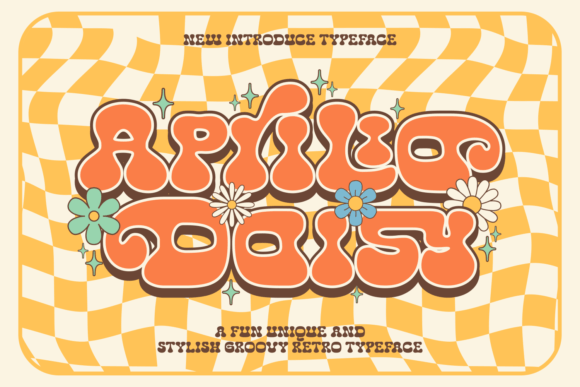
Have you ever been browsing through a vintage store or antique shop, and suddenly, you’re struck by the beauty of a distressed, hand-painted sign? The nostalgia, the charm, and the romance that comes with it is exactly what designers are looking for when they need to create a unique and captivating visual identity. This is where the Aprilia Daisy Font comes in – a stylish and playful retro display font that’s perfect for adding a touch of whimsy to your designs.
Whether you’re working on a greeting card, a headline, or any other creative project, the Aprilia Daisy Font is sure to give it a romantic and exquisite feel. Its versatility and PUA encoding make it a valuable asset for designers, allowing them to access all of the amazing glyphs and ligatures with ease. With the Aprilia Daisy Font, you’ll be able to add a touch of vintage charm to your designs, making them truly stand out.
Aprilia Daisy Font Key Features
- Unique Characteristics: Aprilia Daisy Font features a unique, playful design with a mix of rounded and geometric shapes, giving it a distinctive look.
- Font Style: The font has a casual, handwritten feel, making it suitable for informal and creative projects.
- Language Support: Aprilia Daisy Font supports a wide range of languages, including Latin-based alphabets and some Cyrillic and Greek characters.
Aprilia Daisy Font Review
First off, I want to say that I’m a fan of the Aprilia Daisy Font. It’s got a certain charm to it that’s hard to ignore ✨. The font’s unique blend of rounded edges and geometric shapes gives it a quirky, playful feel that’s perfect for creative projects. The designer has done a great job of balancing the different elements, resulting in a font that’s both visually appealing and easy to read.
One of the things that really stands out about the Aprilia Daisy Font is its versatility ✨. It can be used for a wide range of applications, from headings and titles to body text and even logos. The font is also highly customizable, with a range of weights and styles available to suit different design needs.
- Rounded edges and geometric shapes give the font a unique, playful feel ✨
- Highly customizable, with a range of weights and styles available
- Perfect for creative projects, headings, titles, body text, and logos
- May not be suitable for formal or traditional designs ⚠️
- Can be a bit too playful for some applications ⚠️
- Not as versatile as some other fonts on the market ⚠️
Overall, I think the Aprilia Daisy Font is a great addition to any designer’s toolkit. While it may not be suitable for every project, it’s a versatile and highly customizable font that’s perfect for creative and playful designs. With a bit of experimentation, I think you’ll find that it’s a great choice for a wide range of applications.
Getting the Most Out of the Aprilia Daisy Font
The Aprilia Daisy Font is a beautiful, elegant font that works well for wedding invitations, baby showers, and other special occasions.
Use it to create a whimsical and playful atmosphere with its floral-inspired design.
The Aprilia Daisy Font is perfect for:
– Baby shower invitations and decorations
– Floral-themed designs and artwork
– Whimsical and playful designs for kids and adults alike